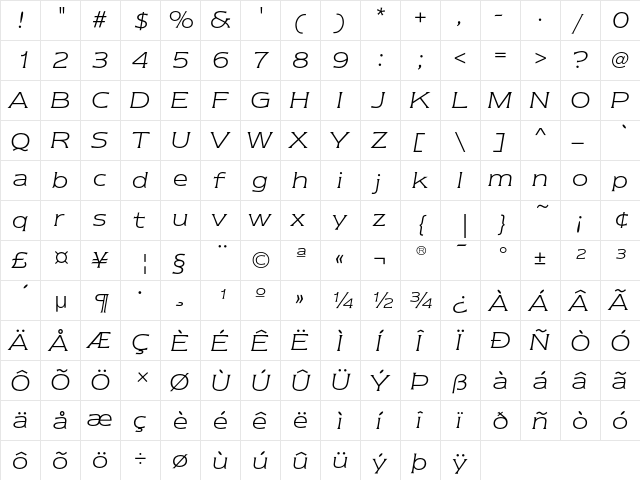
NewtextEF LightItalic Font Preview
Design Context for NewtextEF Typeface
NewtextEF takes a measured approach to typography — its balanced proportions and neutral character make it a reliable workhorse for both digital and print work. The slanted form adds forward momentum and visual energy. Its slender proportions lend an understated elegance to any composition.
Pro Tip: Try NewtextEF for annotation and caption copy alongside an upright companion — the contrast in angle creates a dynamic but ordered typographic system.